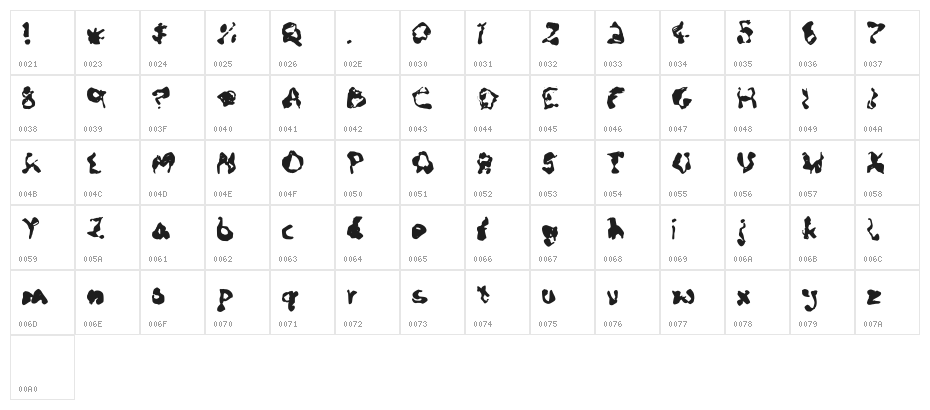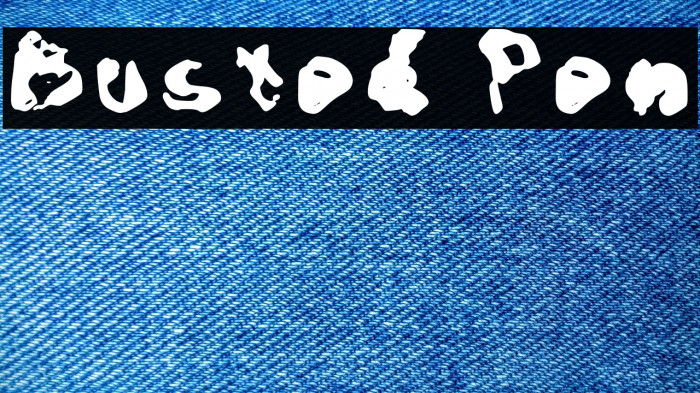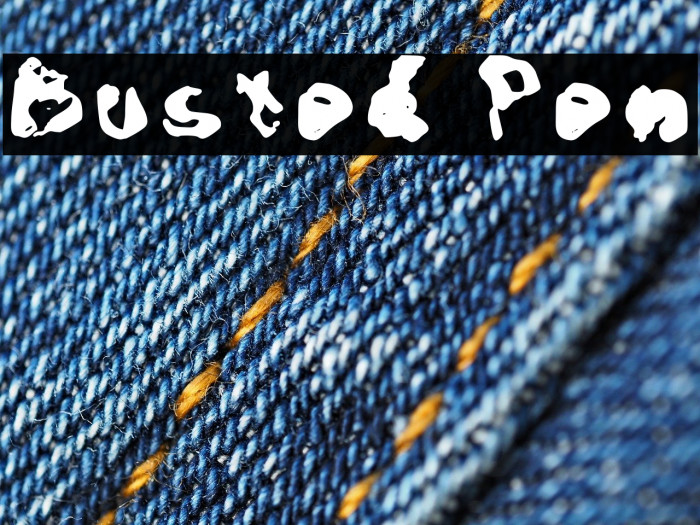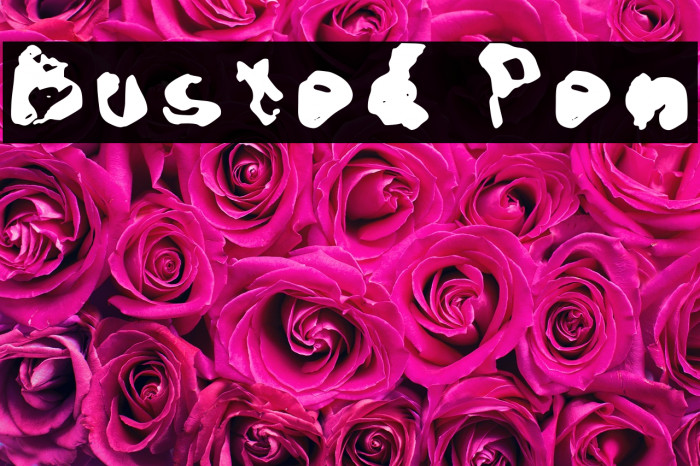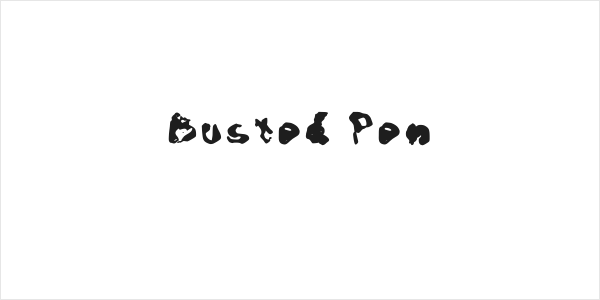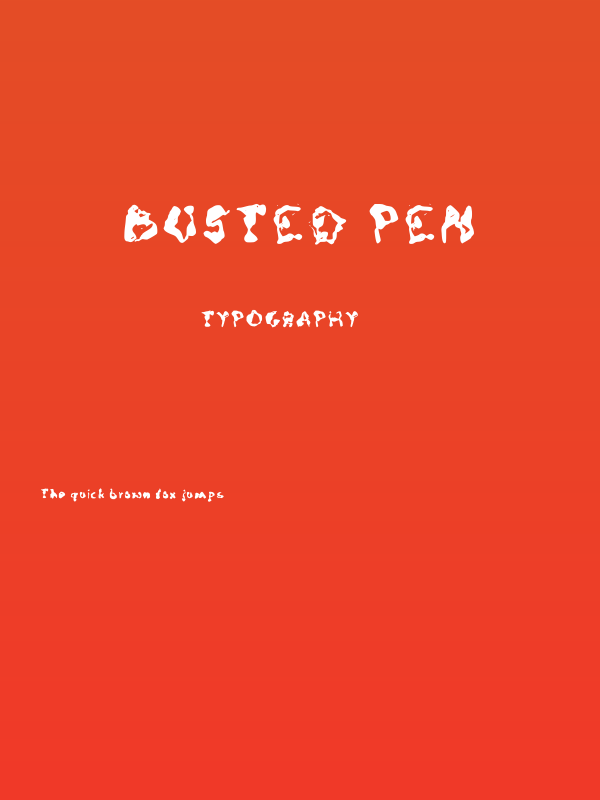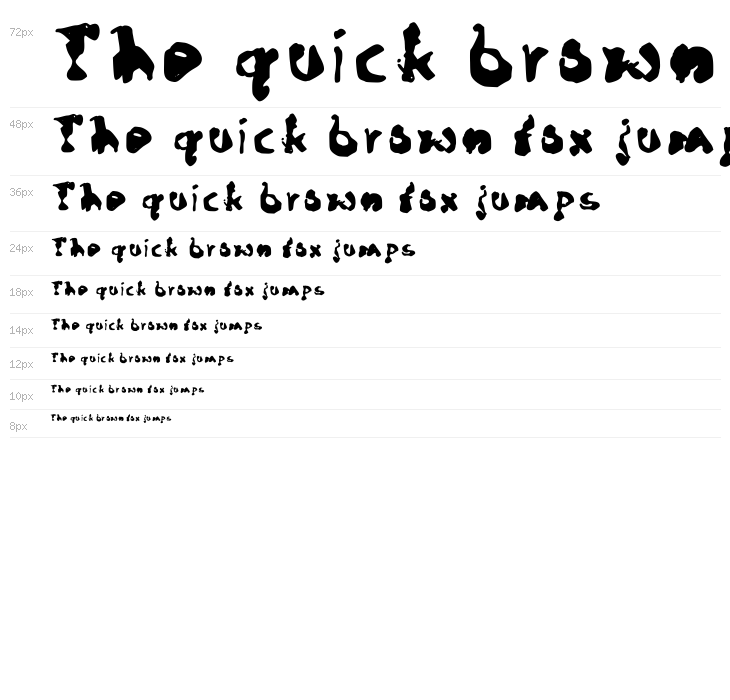
Busted Pen Font
Busted Pen Description
This font exhibits a highly distressed and chaotic appearance, reminiscent of ink splatters or a pen that has exploded on the page. The characters are irregular and jagged, with varying stroke thickness that gives each letter a unique and unpredictable form. This creates a sense of movement and energy, making it stand out as a bold and artistic choice. The uppercase and lowercase letters maintain this erratic style, with some characters appearing more abstract than others. Numbers and special characters follow the same design, ensuring consistency across the typeface. This font is ideal for projects that require a raw, edgy, and unconventional look.
| Use Case | Logos, Posters, Artistic projects |
| Proposed Projects | Album covers, street art-inspired designs, edgy branding, or any project needing a raw, artistic touch. |